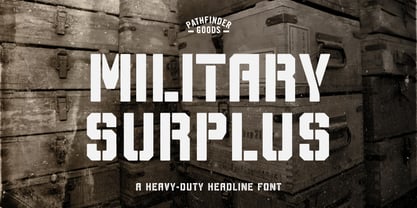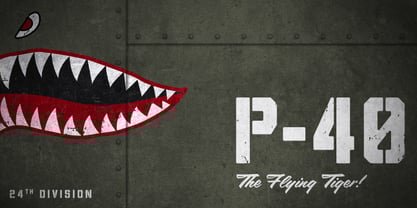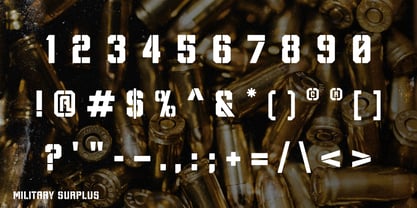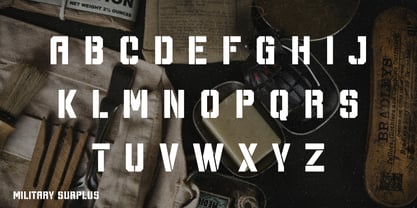
Military Surplus
by Pathfinder Goods
The Military Surplus Font Family was designed by Christian Ramirez and published by Pathfinder Goods. Military Surplus contains 1 styles.
Military Surplus – A Heavy Duty Headline font straight from the front lines which includes:
• Uppercase letters
• Numbers
• Glyphs
This bold stencil font is versatile and works well for military-themed designs, strong, warning-type labels, and more! When designing each letter, there was a focus on legibility and an attention to geometric detail.
Designers: Christian Ramirez
Publisher: Pathfinder Goods
Foundry: Pathfinder Goods
Design Owner: Pathfinder Goods
About Pathfinder Goods